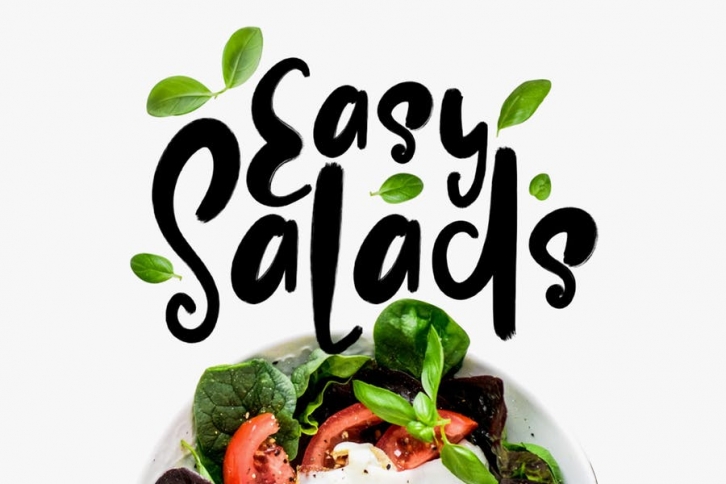
Easy Salads
Give your designs an authentic handcrafted feel. Easy Salads is perfectly suited to logo, stationery, branding, typography quotes, magazine or book cover, website header, clothing, branding, packaging design, restaurant and more. Includes Ligatures ss, oo, nn, rr, ii, ll, tt